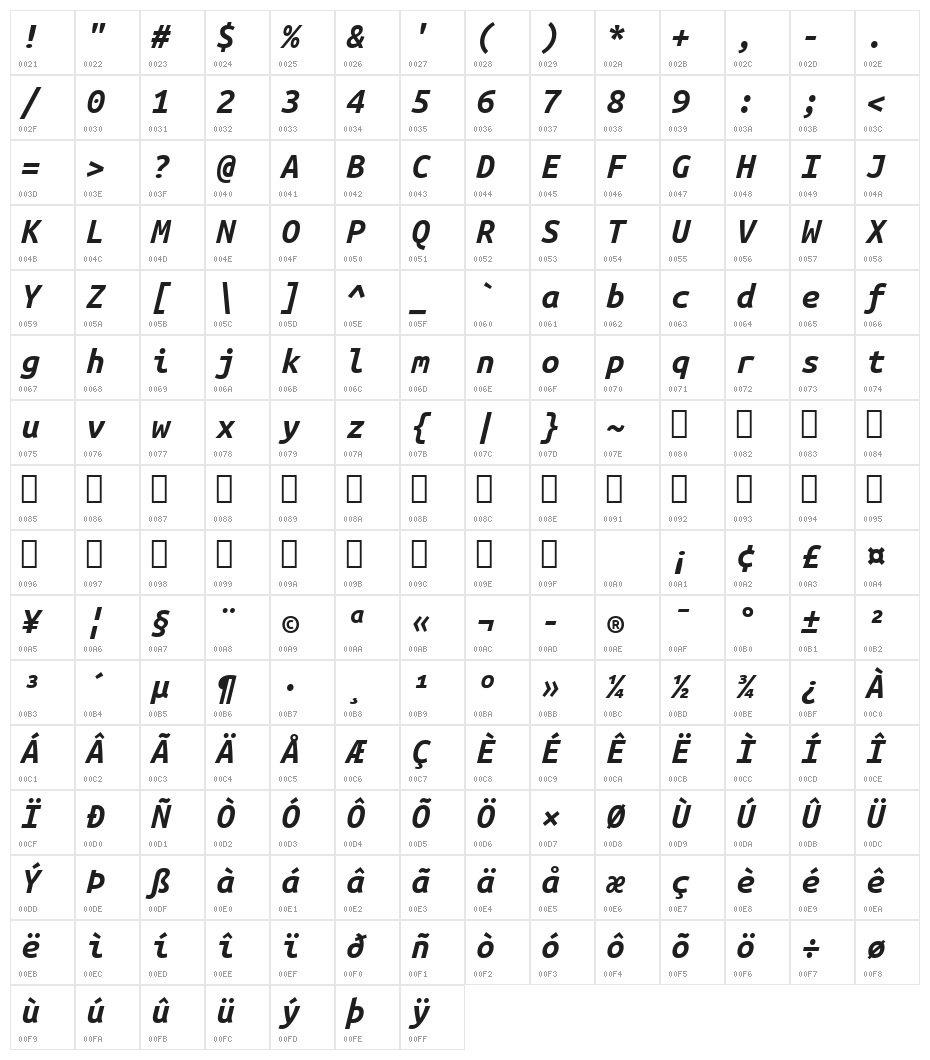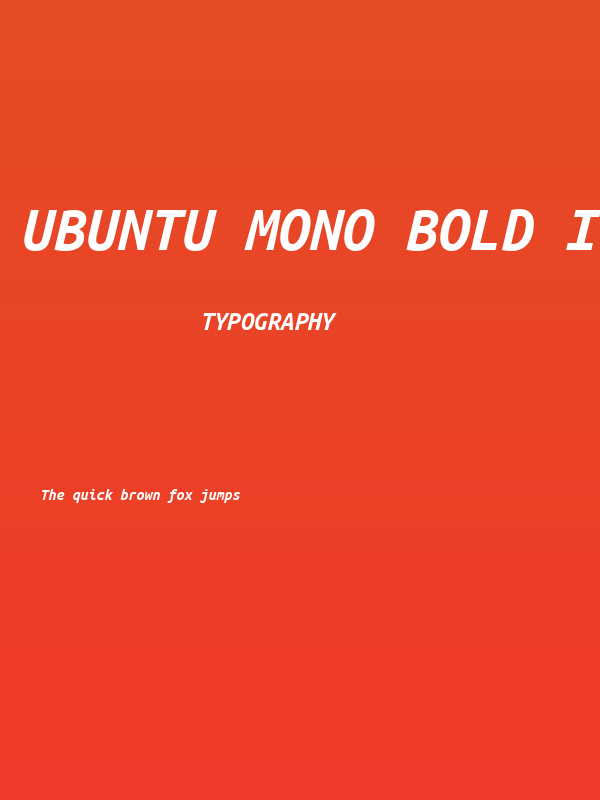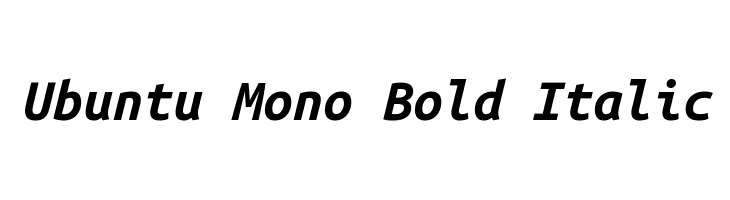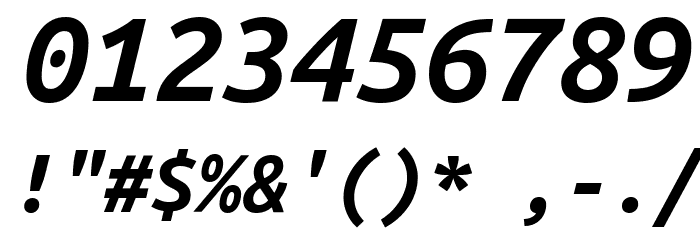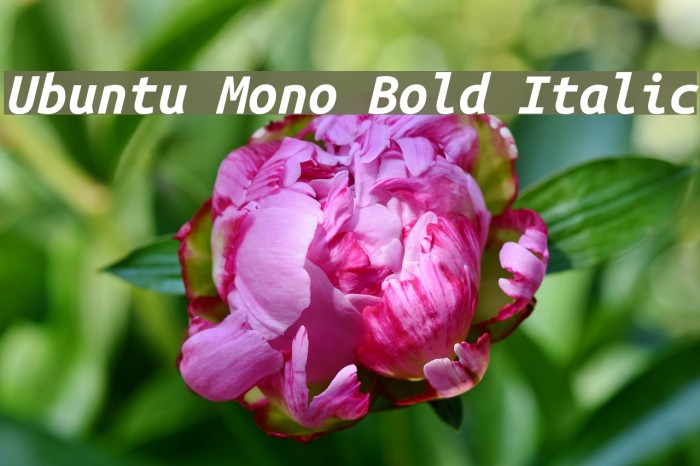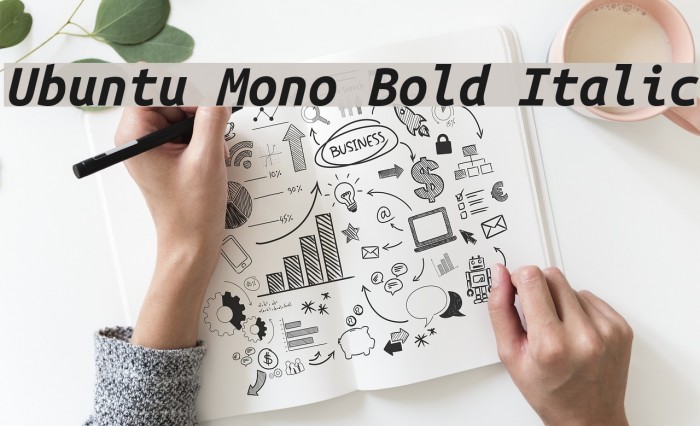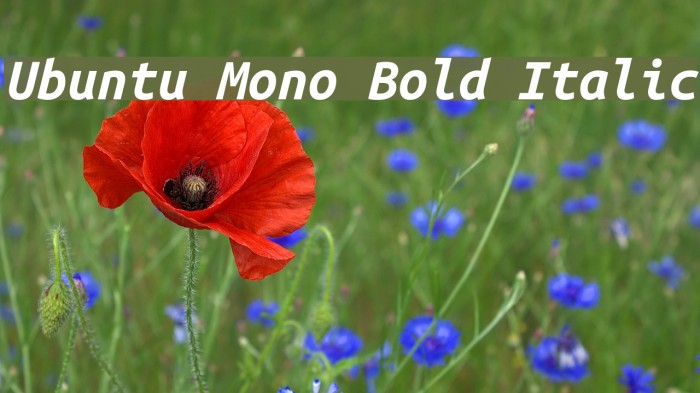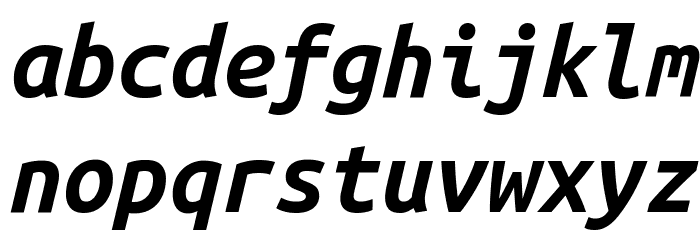
Ubuntu Mono Bold Italic Font
Ubuntu Mono Bold Italic Description
This font features a monospaced design with a bold and italic style, offering a unique blend of readability and emphasis. Each character maintains equal width, ensuring alignment in text blocks, which is ideal for coding and tabular data. The italic slant adds a dynamic and modern touch, while the bold weight provides strong visibility. The font's clean lines and uniform spacing contribute to its legibility, making it suitable for both digital and print media. Its versatility is enhanced by the inclusion of a full set of uppercase and lowercase letters, numerals, and a range of special characters.
| Use Case | Coding, Technical documentation, Print media |
| Proposed Projects | Ideal for coding environments, technical documentation, and any project requiring clear, aligned text. |